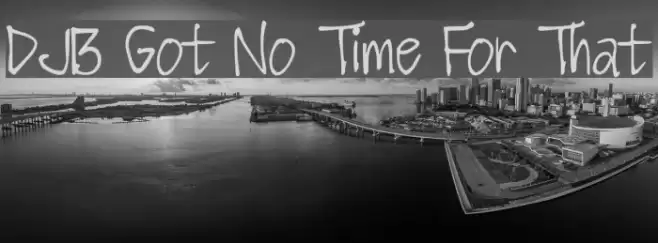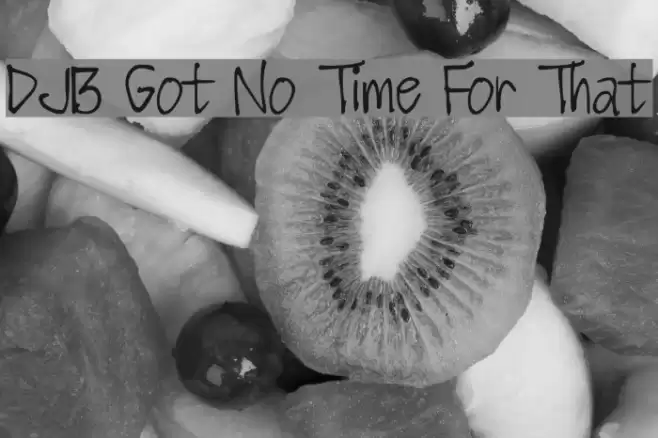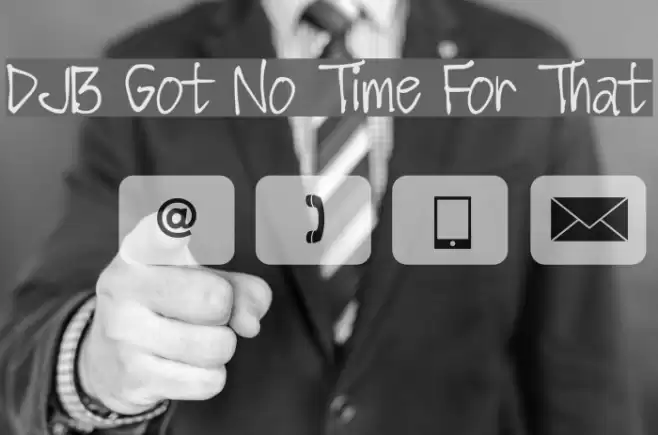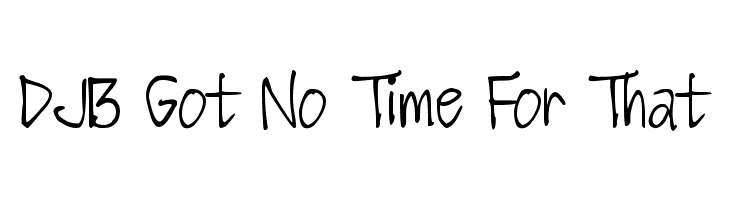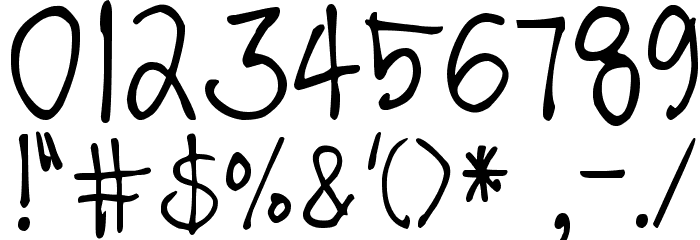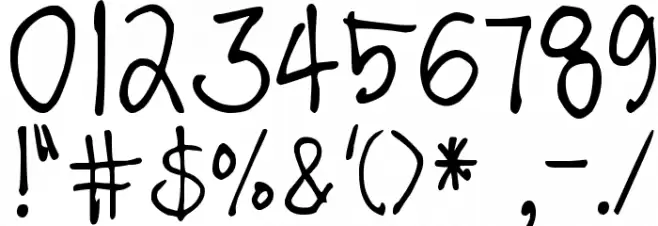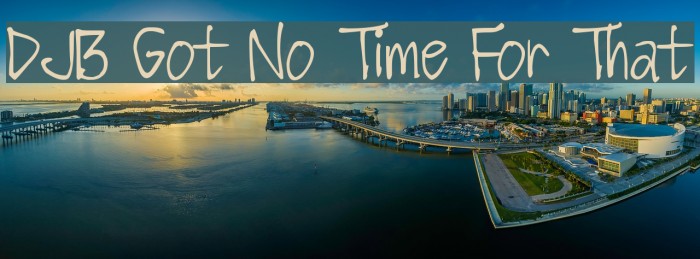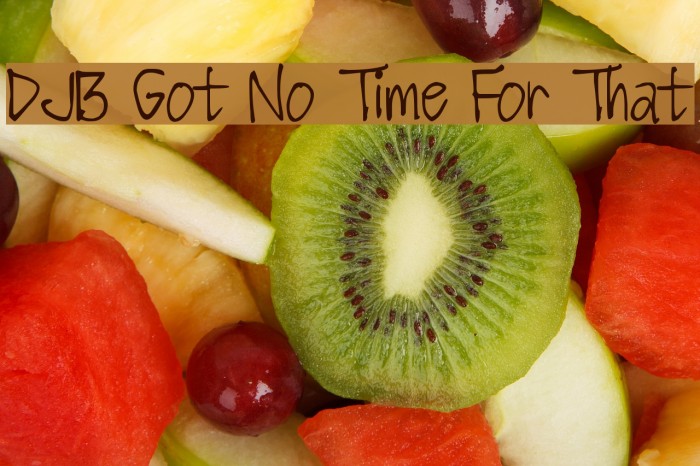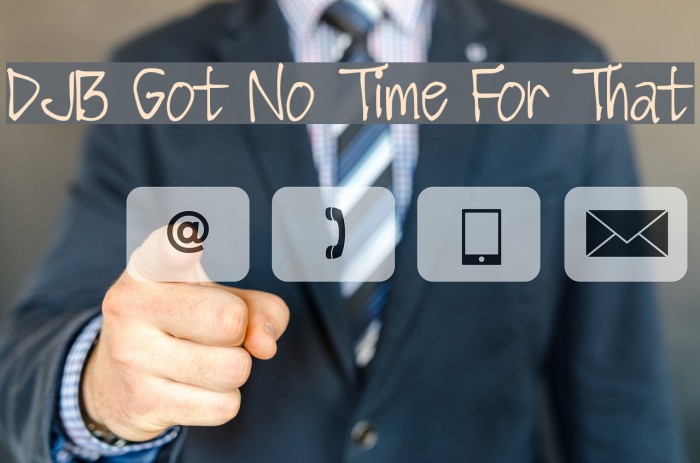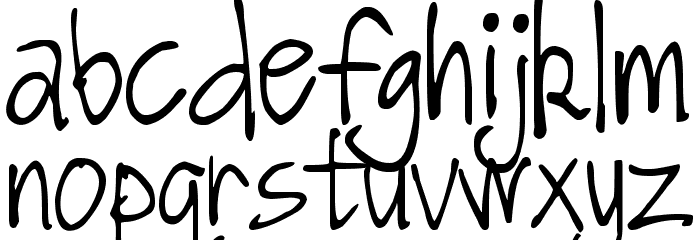
DJB Got No Time For That Font
DJB Got No Time For That Description
This playful and casual font features a handwritten style that exudes a sense of spontaneity and creativity. The letters are uneven and slightly tilted, giving it a relaxed and informal appearance. The strokes are consistent in thickness, with a medium contrast that adds to its legibility. The characters are well-spaced, providing a balanced look that is easy to read. This font is ideal for projects that require a personal touch, such as greeting cards, invitations, or any design that aims to convey warmth and friendliness.
A playful, handwritten font with a casual and creative vibe from Uncategorized fonts.
- Proposed Projects: Greeting cards, invitations, personal blogs, children's books, and creative posters.
- Overall Style: Casual, Playful
- Use Case: Headlines, Informal text, Creative projects